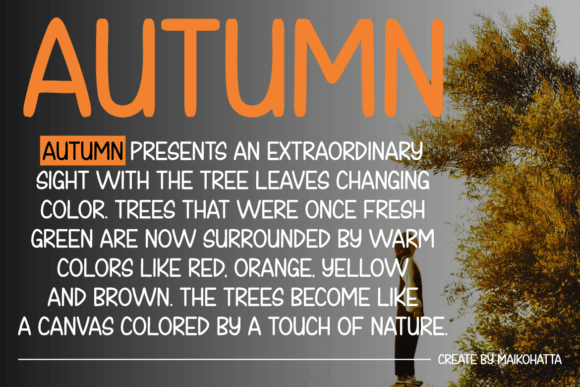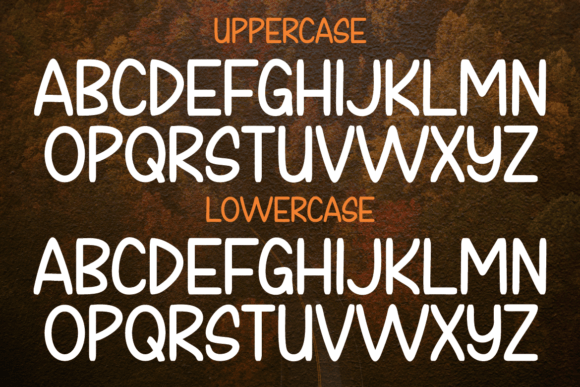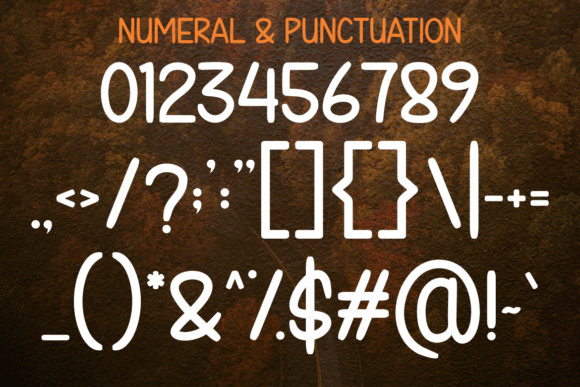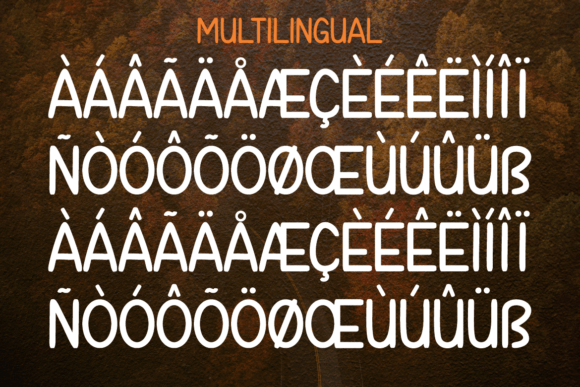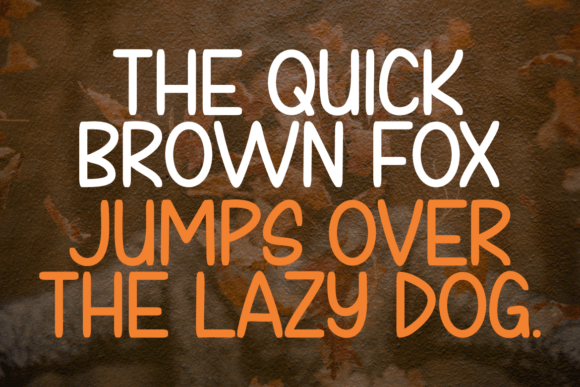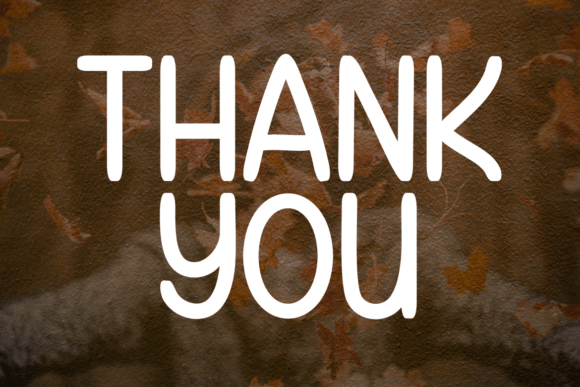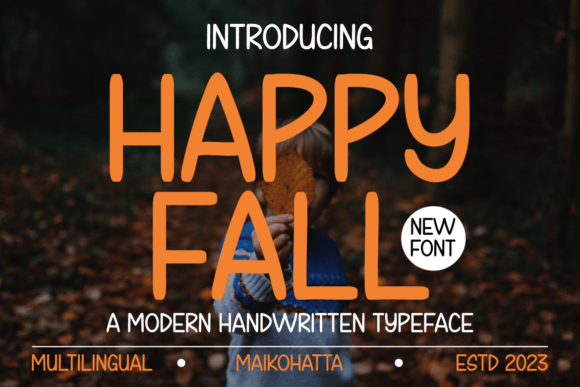
Happy Fall Font: Evoking the Warmth and Wonder of the Autumn Season
As the seasons change and the leaves begin to turn, a sense of nostalgia and wonder fills the air. The vibrant colors and gentle breeze of autumn evoke feelings of coziness and tranquility, making it a popular inspiration for designers and crafters. If you’re looking to capture the essence of the fall season in your designs, look no further than the Happy Fall font.
A Font that Embodies the Spirit of Autumn
The Happy Fall font features a unique style that perfectly encapsulates the warmth and natural wonder of the autumn season. With delicate lines and gentle curves, this font adds a touch of softness and tranquility to any design. The letter characters are carefully crafted to create a sense of dimension, giving your projects a beautiful, organic feel.
Perfect for Autumn-Inspired Projects
Happy Fall is highly suitable for projects that aim to depict the beauty and charm of the autumn season. Whether you’re designing invitations, greeting cards, posters, or other creative projects, this font is sure to impart a stunning natural touch. Its gentle, soothing quality makes it perfect for a wide range of applications, from seasonal promotions to personal crafts.
Invitations and Greeting Cards
Autumn is a time for gatherings, celebrations, and cozy get-togethers with friends and family. The Happy Fall font is ideal for creating warm and inviting invitations and greeting cards that set the tone for a seasonal event. Whether you’re planning a harvest-themed party or simply want to send a heartfelt greeting, this font will help you create a beautiful and memorable design.
Posters and Flyers
From seasonal promotions to fall festivals, posters and flyers are a great way to capture the attention of your audience and convey the excitement of the autumn season. The Happy Fall font is perfect for creating eye-catching designs that evoke the sights, sounds, and feelings of fall. Use it to create stunning posters and flyers that showcase the beauty of the season and draw people in.
Other Creative Projects
The Happy Fall font is versatile and can be used in a wide range of creative projects, from digital art to handmade crafts. Whether you’re creating a seasonal blog post, social media graphic, or DIY project, this font will add a touch of autumnal charm and whimsy to your design.
Key Features of the Happy Fall Font
- Unique, nostalgic style that evokes the warmth and wonder of the autumn season
- Delicate lines and gentle curves add dimension and softness to letter characters
- Highly suitable for projects that aim to depict the beauty and charm of autumn
- Perfect for invitations, greeting cards, posters, and other creative projects
- Works well for both digital and print designs
Tips for Using the Happy Fall Font
The Happy Fall font is a beautiful and versatile font that’s perfect for designers and crafters looking to capture the essence of the autumn season. With its unique, nostalgic style and delicate lines and curves, this font is sure to add a touch of warmth and wonder to any design. Whether you’re creating invitations, posters, or other creative projects, the Happy Fall font is a great choice for anyone looking to evoke the beauty and charm of autumn.